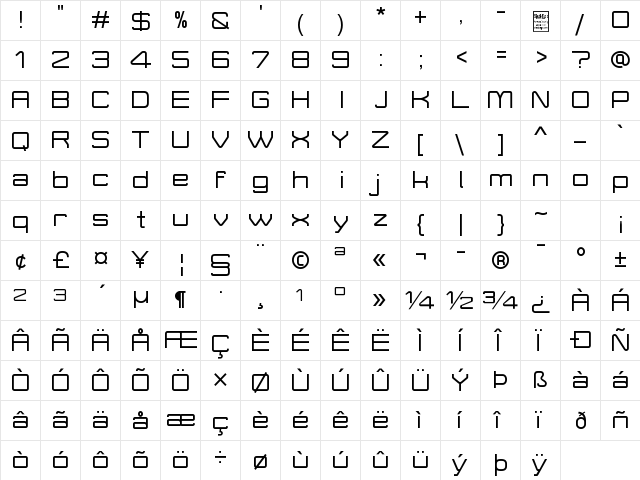
Move-X Regular
| Foundry | StudioTypo |
Design Context for Move-X Typeface
Move-X offers clean, dependable letterforms without strong stylistic allegiance, making it a practical choice for designers who need flexibility.
Pro Tip: Use Move-X in both headline and body roles to test its range before committing to a single application.